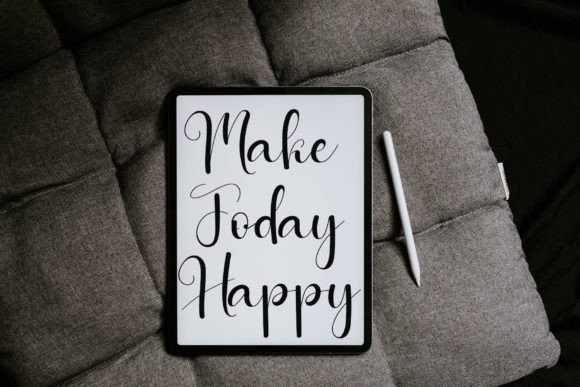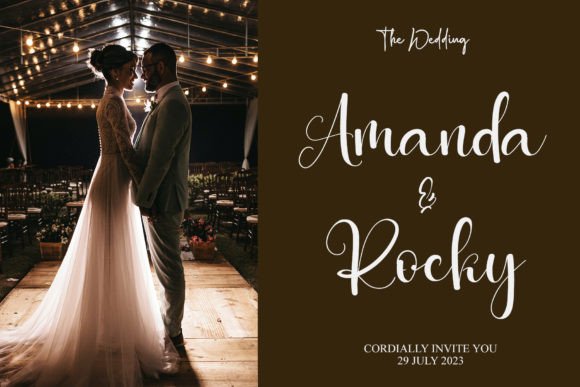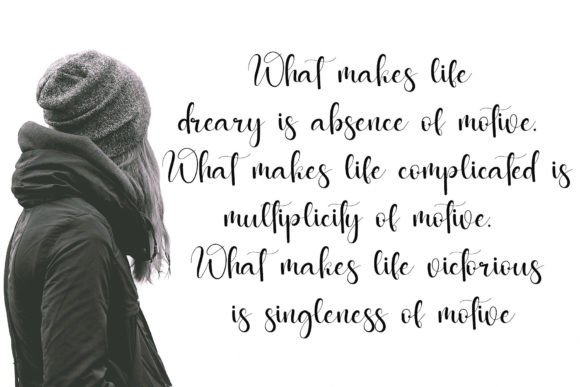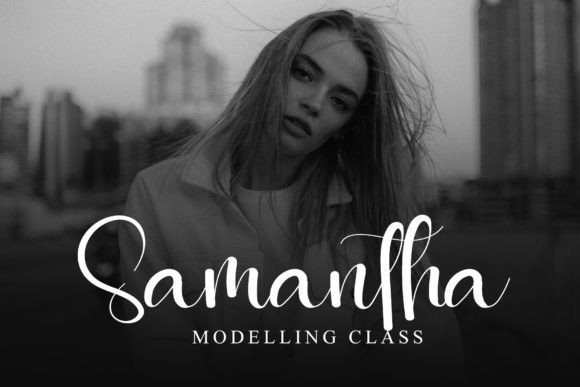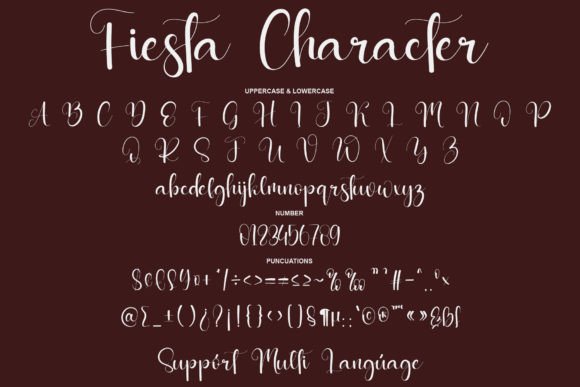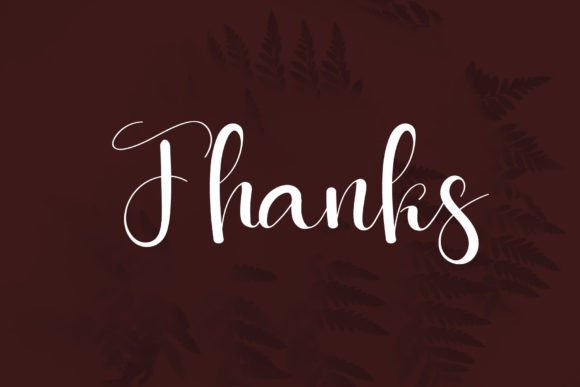
Introducing Fiesta Font: Elevate Your Designs with Timeless Elegance
Are you on the hunt for a font that exudes style, sophistication, and a touch of classic charm? Look no further than Fiesta Font, a stunning handwritten typeface that brings a contemporary atmosphere to your designs. Inspired by the timeless beauty of classic calligraphy, Fiesta Font is the perfect addition to any design project, offering impeccable form and a balanced, varied aesthetic.
The Story Behind Fiesta Font
Fiesta Font was crafted with the goal of creating a typeface that would enhance the beauty of any project, whether it’s a branding campaign, a wedding invitation, or a packaging design. The font’s design is rooted in traditional calligraphy, yet it boasts a modern twist that sets it apart from more traditional typefaces. This blend of classic and contemporary elements makes Fiesta Font incredibly versatile, allowing it to seamlessly integrate into a wide range of design contexts.
Key Features of Fiesta Font
So, what makes Fiesta Font so special? Here are just a few of its key features:
- Handwritten with Love: Fiesta Font is a handwritten typeface, which means it brings a personal and intimate feel to your designs. Its strokes are fluid and natural, giving your text a warm, approachable vibe.
- Contemporary Atmosphere: While Fiesta Font draws inspiration from classic calligraphy, it has been carefully crafted to feel modern and fresh. This makes it perfect for designers looking to create work that feels current and on-trend.
- Impeccable Form: One of the standout features of Fiesta Font is its impeccable form. Each letter has been meticulously designed to ensure that the font looks beautiful both in large and small sizes.
- Balanced and Varied: Fiesta Font offers a range of variations, allowing you to create a unique look for your project. Whether you’re looking for elegant and refined or playful and whimsical, this font has you covered.
Fiesta Font is a dream come true for designers and crafters alike. Whether you’re working on a client project or a personal craft, this font can help elevate your work to the next level. Here are just a few ways you can use Fiesta Font:
- Branding and Logos: Create a lasting impression with a custom logo that showcases the elegance of Fiesta Font.
- Wedding Invitations and Stationery: Add a touch of romance and sophistication to your wedding invitations, thank you cards, and other stationery.
- Packaging Design: Stand out on store shelves with packaging that features the unique, handcrafted look of Fiesta Font.
- Digital and Print Media: Use Fiesta Font in your digital and print projects, from social media graphics to brochures and flyers.
Why Choose Fiesta Font?
With so many fonts to choose from, why should you opt for Fiesta Font? Here are just a few compelling reasons:
- Unique and Memorable: Fiesta Font’s distinctive style ensures that your designs will stand out from the crowd.
- Easy to Read: Despite its elegant appearance, Fiesta Font is incredibly legible, making it perfect for both headings and body text.
- Highly Versatile: Whether you’re working on a digital project or a print project, Fiesta Font can adapt to any design context.
Fiesta Font is more than just a typeface – it’s a design solution that can elevate your projects to new heights. Its unique blend of classic calligraphy and modern style makes it the perfect choice for designers and crafters looking to add a touch of elegance and sophistication to their work. So why wait? Discover the beauty of Fiesta Font for yourself and take your designs to the next level.